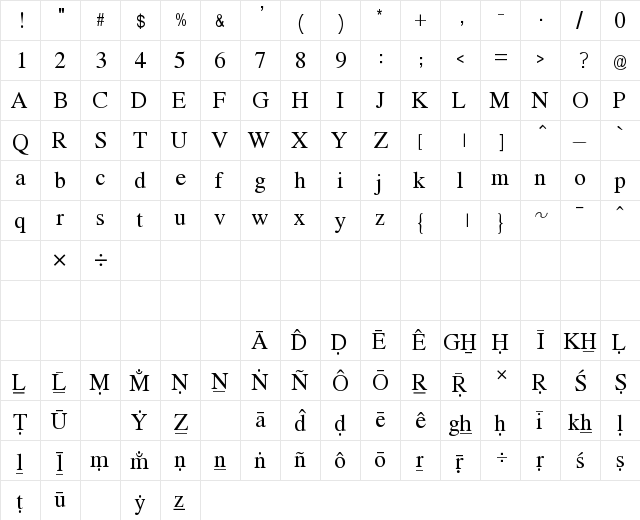
Gargi Medium
| Designer | Asmita S. Khobragade, Dr. Nagarjuna. |
Design Context for Gargi Typeface
Gargi is a composed and adaptable typeface that performs quietly and consistently across a wide range of design contexts.